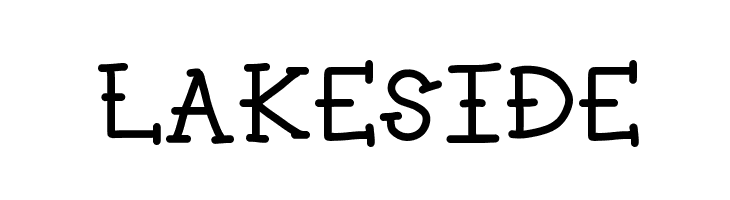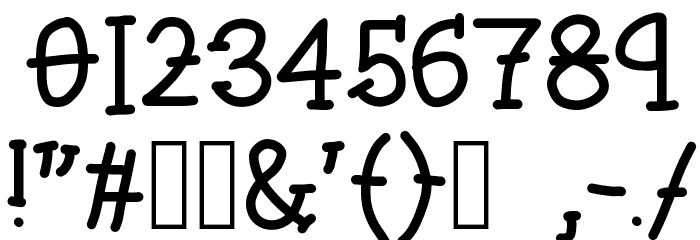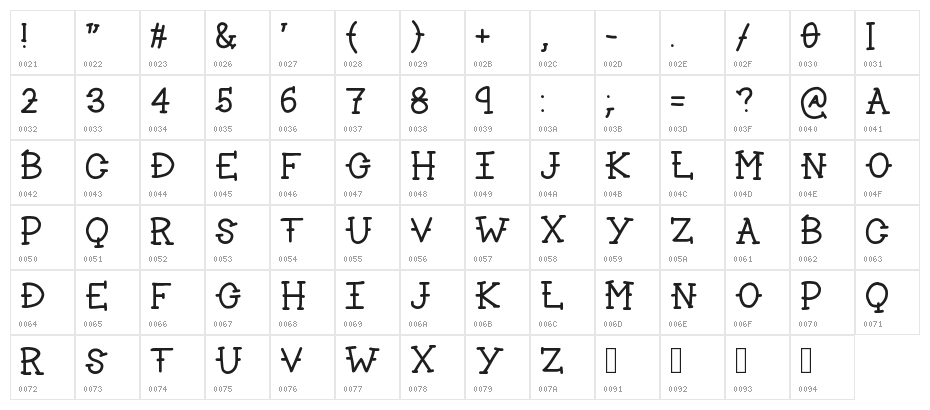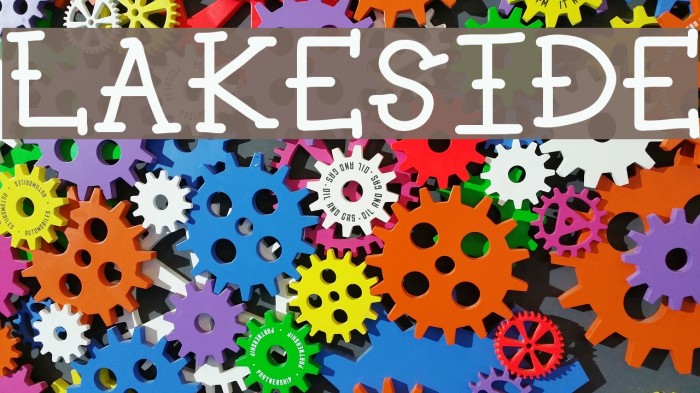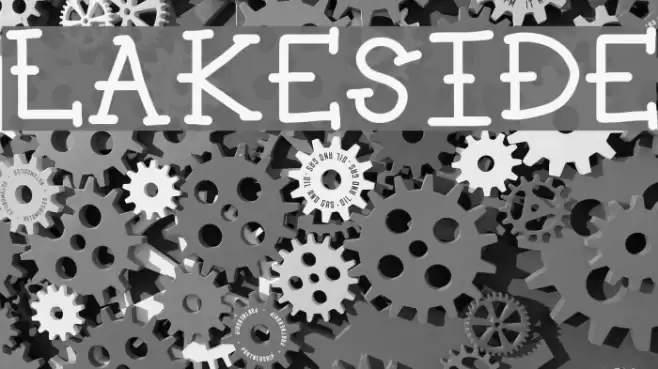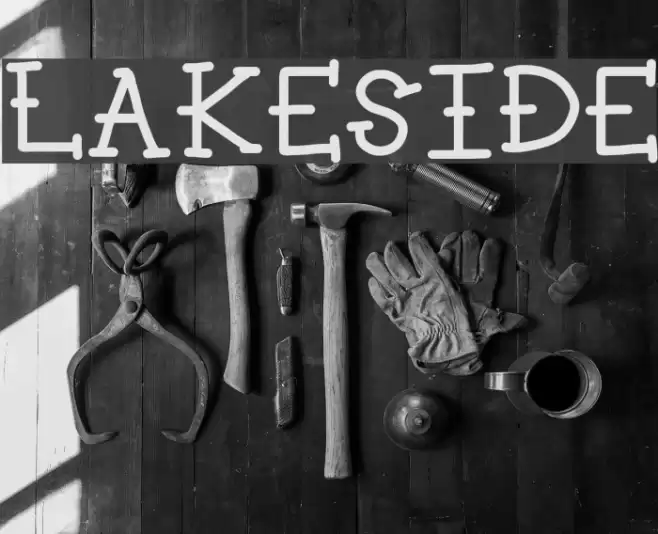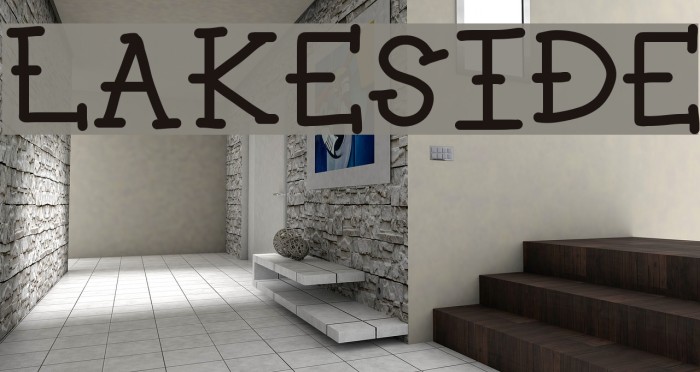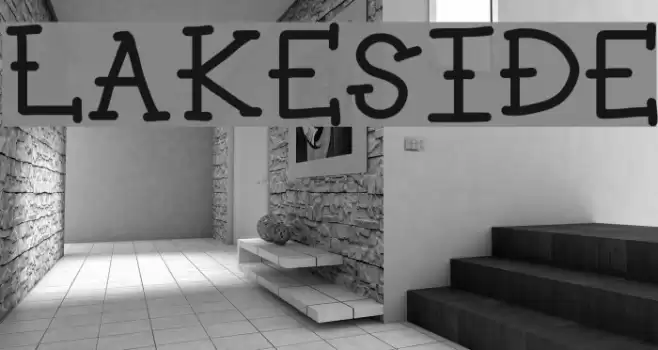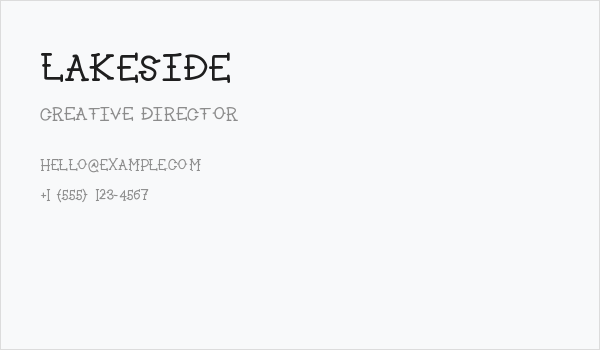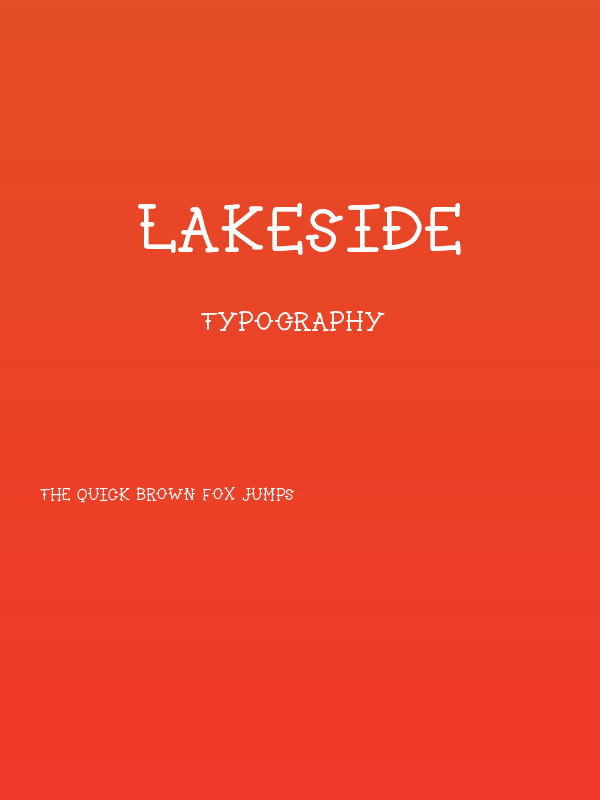
LAKESIDE Font
LAKESIDE Description
This font features a playful and whimsical design with rounded, slightly irregular strokes that give it a hand-drawn appearance. The characters are bold and have a unique charm, with small serifs that add a touch of elegance. The uppercase and lowercase letters maintain a consistent style, while the numerals and special characters complement the overall aesthetic. The font's quirky nature makes it suitable for creative projects that require a fun and informal touch.
| Proposed Projects | Ideal for children's books, greeting cards, playful branding, and creative posters. |